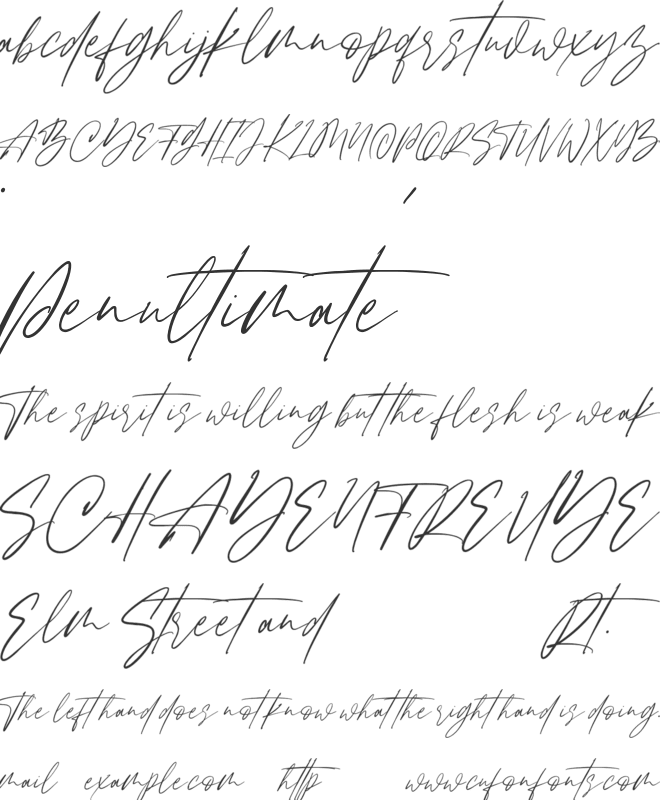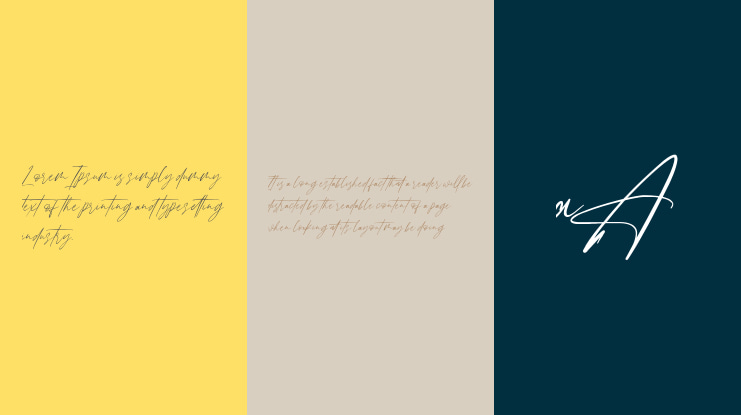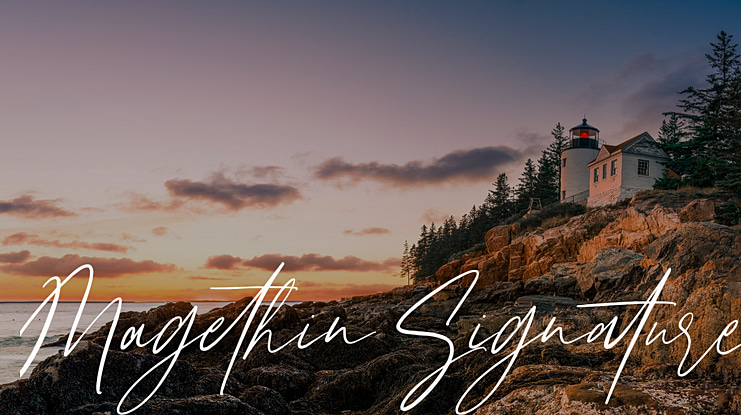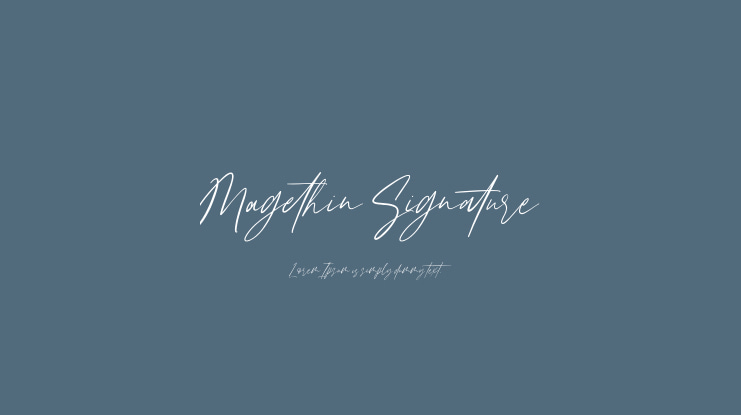
Magethin Signature Font
Magethin Signature Font is a lovely, modern typeface, which updates classic calligraphy with a contemporary twist. It includes initial and terminal letters, alternates, ligatures and multiple language support.